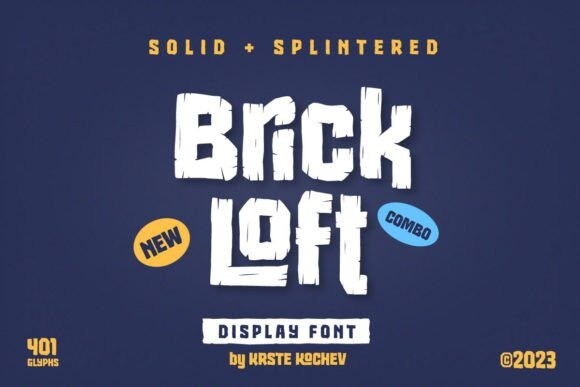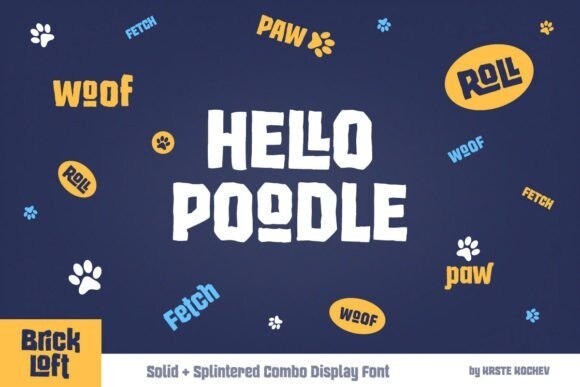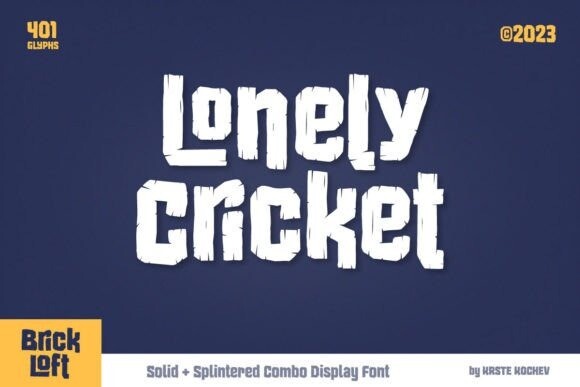
Brick Loft Font
Brick Loft Font is a captivating blend of SOLID and SPLINTERED styles. SOLID brings a rough, distorted look with interlocking letters, while SPLINTERED adds cracks and distortions. This unique font grabs attention in print, packaging, and social media, making it perfect for creating a distinctive and memorable visual impact.